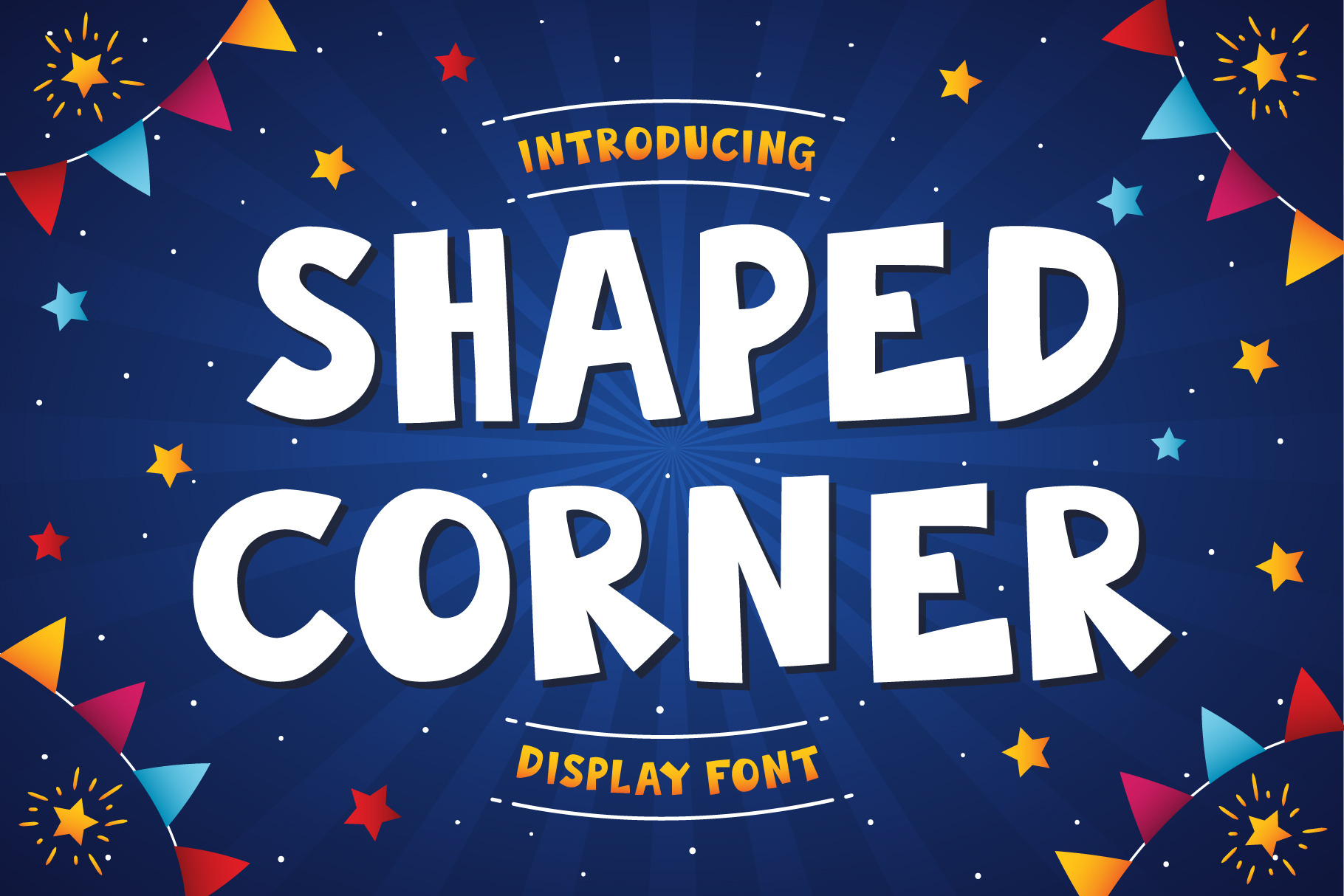
Shaped Corner | Font
Shaped Corner Font Handwritten style fonts, suitable for use with children's themed designs. Perfect for children's story book letter, branding projects, logo, wedding designs, social media posts, advertisements, product packaging, product designs, label, photography, watermark, invitation, stationery and any projects that need handwriting taste.